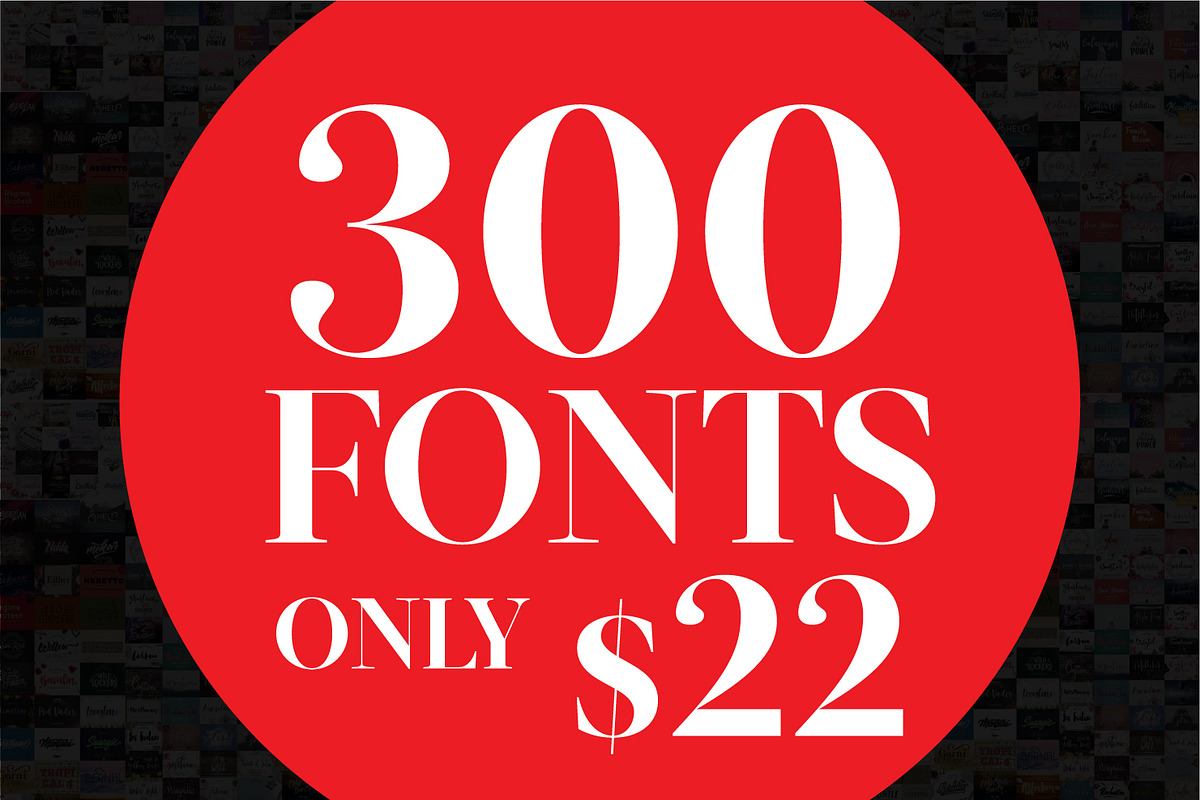
300 Incredible Font Deal: 99% Free Download
300 Incredible Font Free Download is a bold and commanding typeface that delivers strength, power, and cinematic flair. Inspired by action-packed aesthetics and heroic themes, this font is perfect for movie posters, sports branding, video game titles, and projects that need a dramatic visual impact.
With sharp angles, strong lines, and an all-caps style, 300 Incredible Font Free Download grabs attention instantly. It's built for high-impact headlines and statements that refuse to be ignored. Whether you're designing for print or digital, this font brings energy and epic tone to your work.